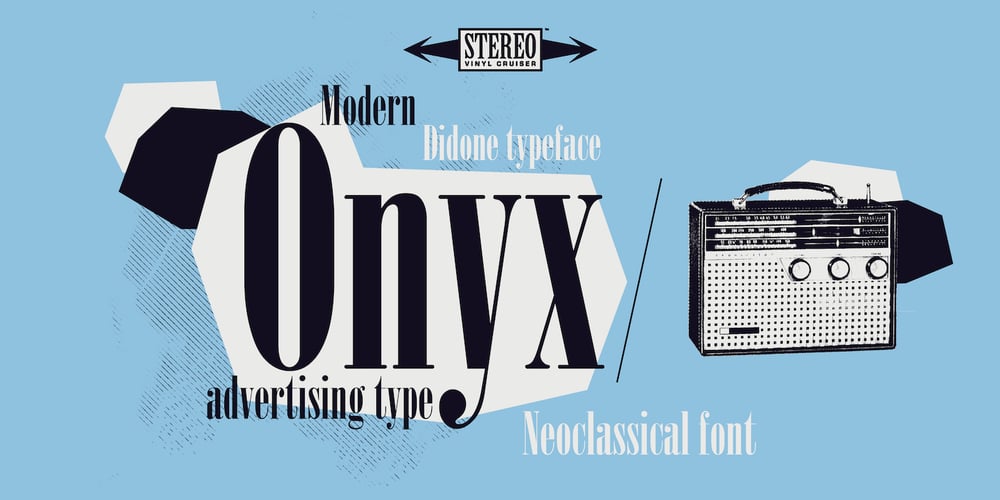
Onyx Font Family was designed by Gerry Powell and published by Monotype. Onyx contains 1 styles and family package options. Gerry Powell, typographer, industrial designer, and director of typographic design for American Type Founders, designed Onyx font for ATF in 1937. A very popular advertising type in the 1940s, Onyx resembles an extremely condensed, bold member of the Bodoni family. Onyx is a good display font, with proportions that make it readable even when space is at a premium.